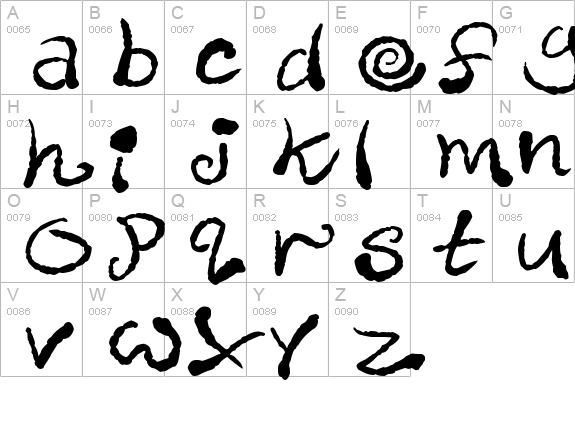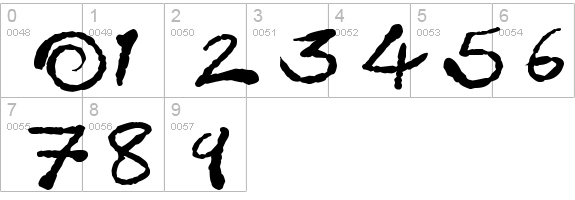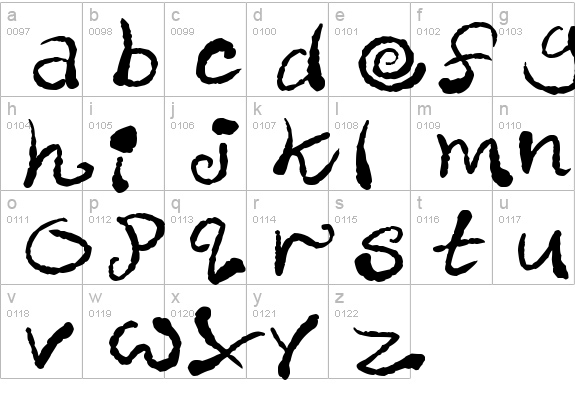
Inky Scrawls Font Details
Inky Scrawls is a free for personal use font in the Script category, designed by Darrell Flood. It has been downloaded 9 times and is available for Windows, Mac and Linux.
Inky Scrawls font is a whimsical and playful typeface that is perfect for adding a creative touch to your designs. With its hand-drawn appearance and quirky charm, this font is sure to stand out and make a statement. The irregular lines and uneven edges give it a unique and artistic look that is both fun and stylish.